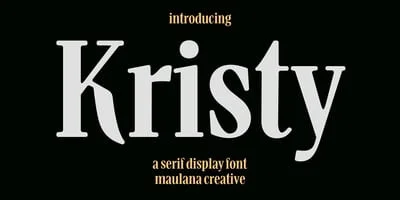
MC Kristy Font
MC Kristy Font is ideal for pop music album covers, female artist branding, contemporary fashion labels, beauty product packaging, lifestyle magazine headers, social media influencer graphics, modern entertainment posters, trendy boutique signage, youth culture campaigns, and vibrant digital content creation. This stylish typeface brings fresh personality and contemporary charm to projects targeting modern audiences and dynamic lifestyle brands.
What makes MC Kristy Font exciting is its perfect embodiment of contemporary confidence that captures the bold spirit and authentic voice of modern creative expression through sleek letterforms that pulse with youthful energy and sophisticated style. The font features confident character construction with stylish curves and dynamic proportions that reflect the empowerment and creativity found in today's pop culture and social media landscapes. Its trendy aesthetic combines professional polish with approachable personality, making it ideal for brands seeking to connect with millennial and Gen-Z audiences through genuine contemporary appeal and cultural relevance.
MC Kristy Font family includes multiple contemporary variations such as Regular, Bold, Light, and Script styles, along with complementary Outline and Shadow versions. Each style maintains the font's distinctive modern character while providing comprehensive design flexibility for entertainment industry branding and lifestyle marketing applications that celebrate individual expression and contemporary culture.
Whether you're creating modern entertainment identities, designing lifestyle marketing campaigns, or developing trendy brand experiences, MC Kristy Font provides the contemporary typography needed for authentic modern communication. This font seamlessly combines stylish appeal with professional versatility, making it an exceptional choice for projects requiring both cultural relevance and commercial success. Its carefully crafted letterforms ensure outstanding performance across social media platforms, entertainment graphics, and lifestyle applications where contemporary typography creates meaningful connections with audiences embracing modern creativity and personal expression.